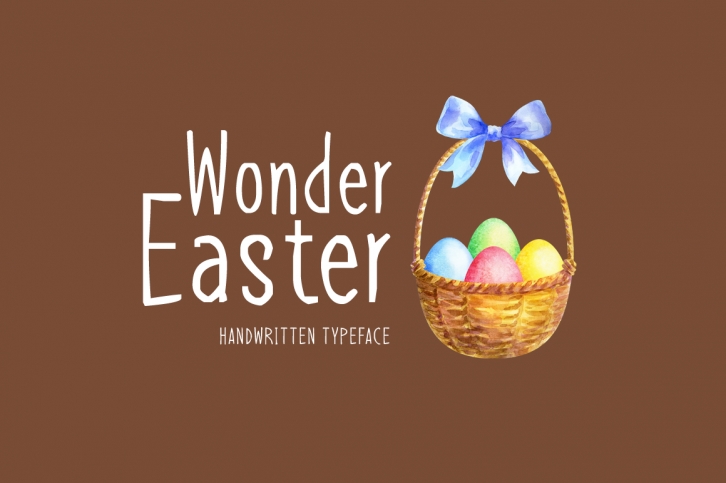
Wonder Easter is a trendy and unique font with an authentic style. It was designed by Seemly Fonts and it's a great choice for creative people who need such a font. It was released on February 20, 2020 and the file size is 14.6 MB. Wonder Easter will add an organic vibe to any design idea!